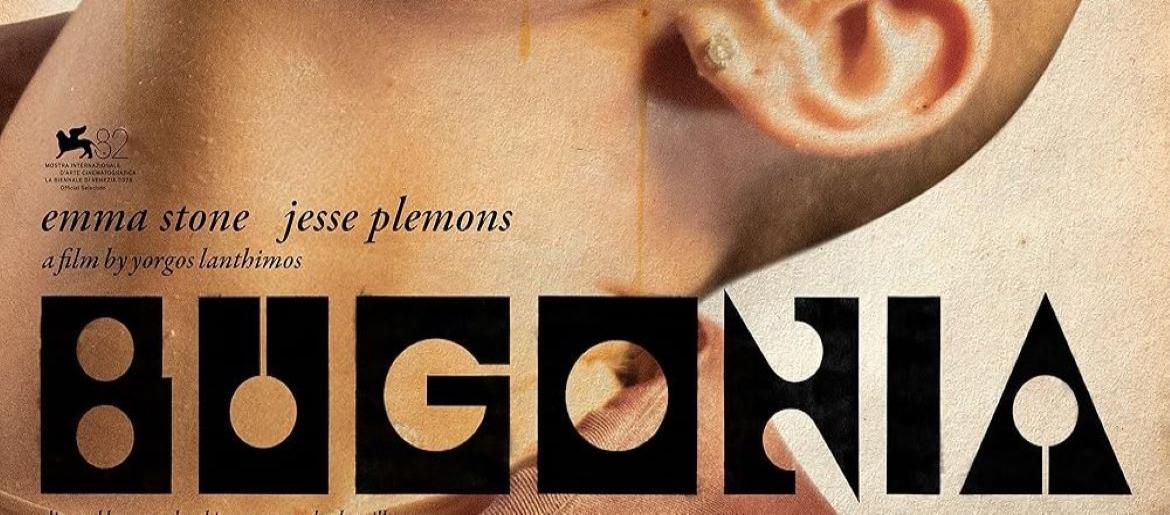
Bugonia Font
Source: Churchward Roundsquare Font
The Bugonia Font evokes a sense of mystery, elegance, and subtle unease. Inspired by the serif-based Churchward Roundsquare, designed by the late New Zealand graphic designer Joseph Churchward, its sharp, structured lines create a timeless yet modern aesthetic. The typeface exudes sophistication while carrying an edge of ritualistic and symbolic storytelling, making it perfect for titles, posters, or branding that wants to convey depth and intrigue.